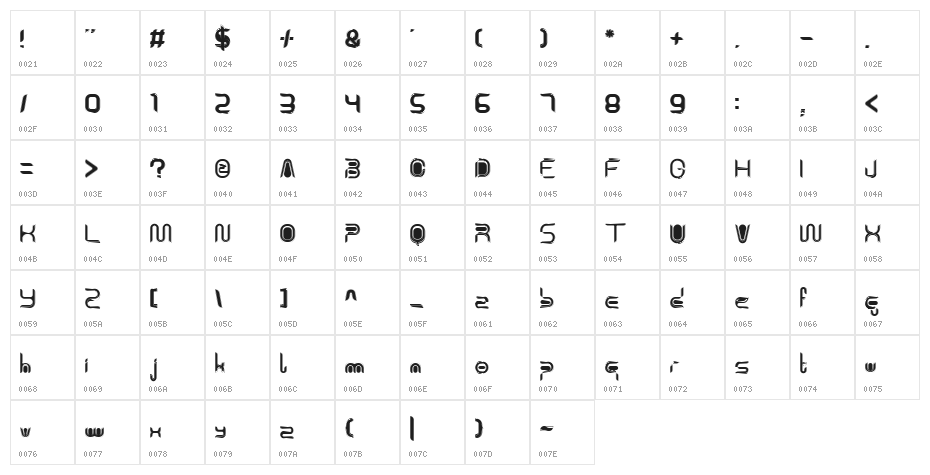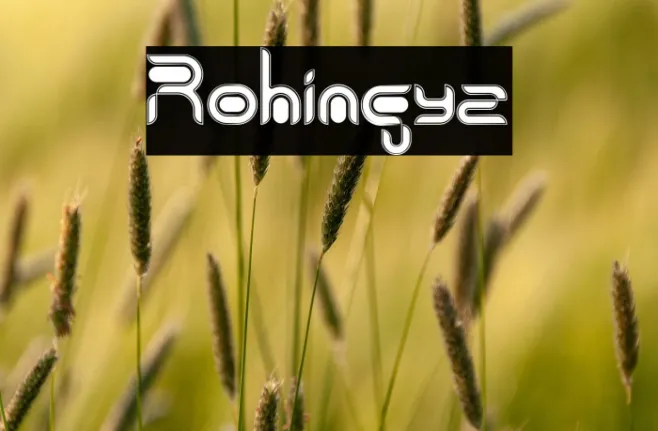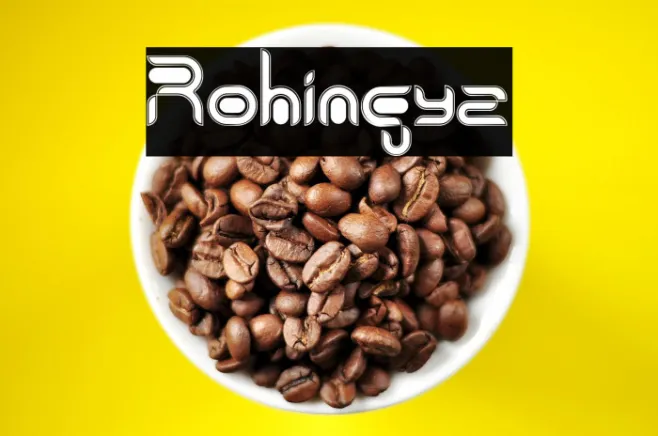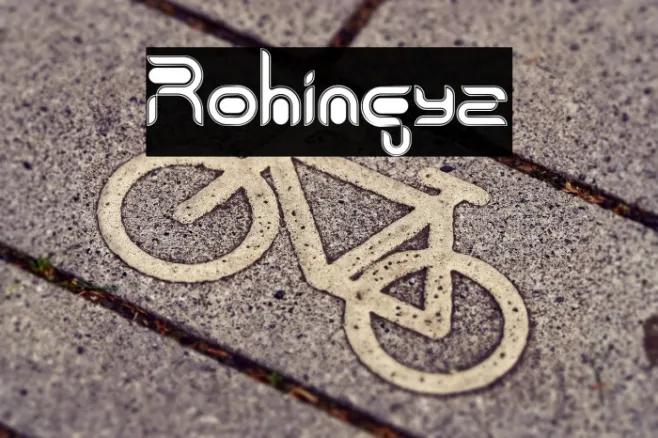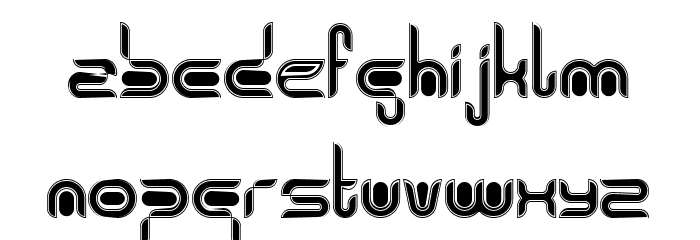
Rohingya Font
Rohingya Description
This font features a futuristic and geometric design, characterized by its bold and rounded shapes. The letters are crafted with a unique blend of sharp angles and smooth curves, giving it a distinctive, modern appearance. The uppercase and lowercase letters maintain a consistent style, with a strong emphasis on symmetry and balance. The numbers and special characters follow the same design principles, ensuring uniformity across all glyphs. The font's boldness and high contrast make it highly legible, even at smaller sizes, while its artistic flair adds a touch of creativity to any project.